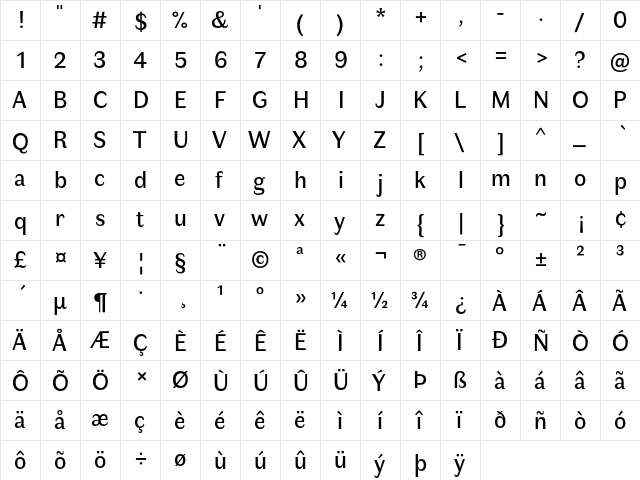
Faune Text Regular
| Foundry | Centre national des arts plastiques |
| Designer | Alice Savoie |
Design Context for Faune Text Typeface
Faune Text takes a measured approach to typography — its balanced proportions and neutral character make it a reliable workhorse for both digital and print work.